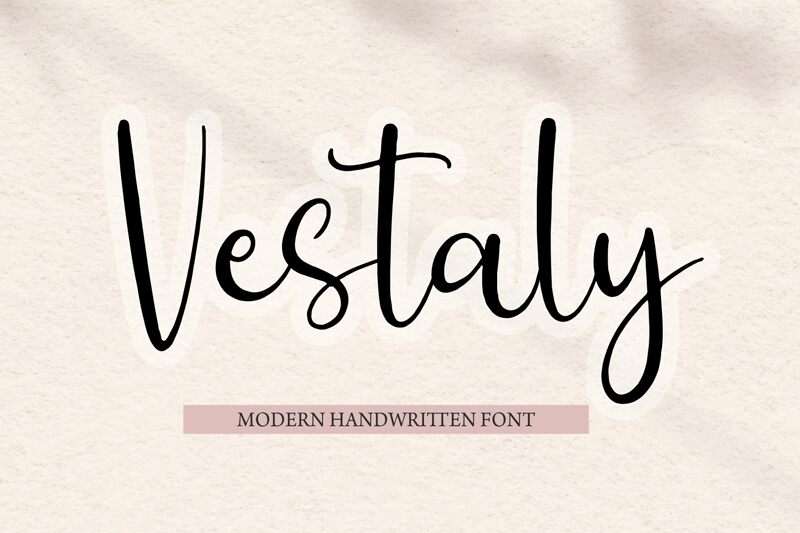
Vestaly font is designed by Forberas Club as a playful handwritten typeface. It brings a nostalgic flow to modern designs using an elegant mix of fluid strokes, flowing lines, and delicate curves. The free font makes all the difference in designs requiring a stylish handwritten touch with its high-contrast characters that seamlessly connect to each other.
Vestaly is ideal for wedding, event, and greeting card invitations; product packaging; branding projects; printed quotes; or as headlines for posters and magazines. The cursive font has the contemporary touch every designer seeks when crafting fresh Instagram posts or SS posts aiming for elegance.
Vestaly — Presentazione del carattere